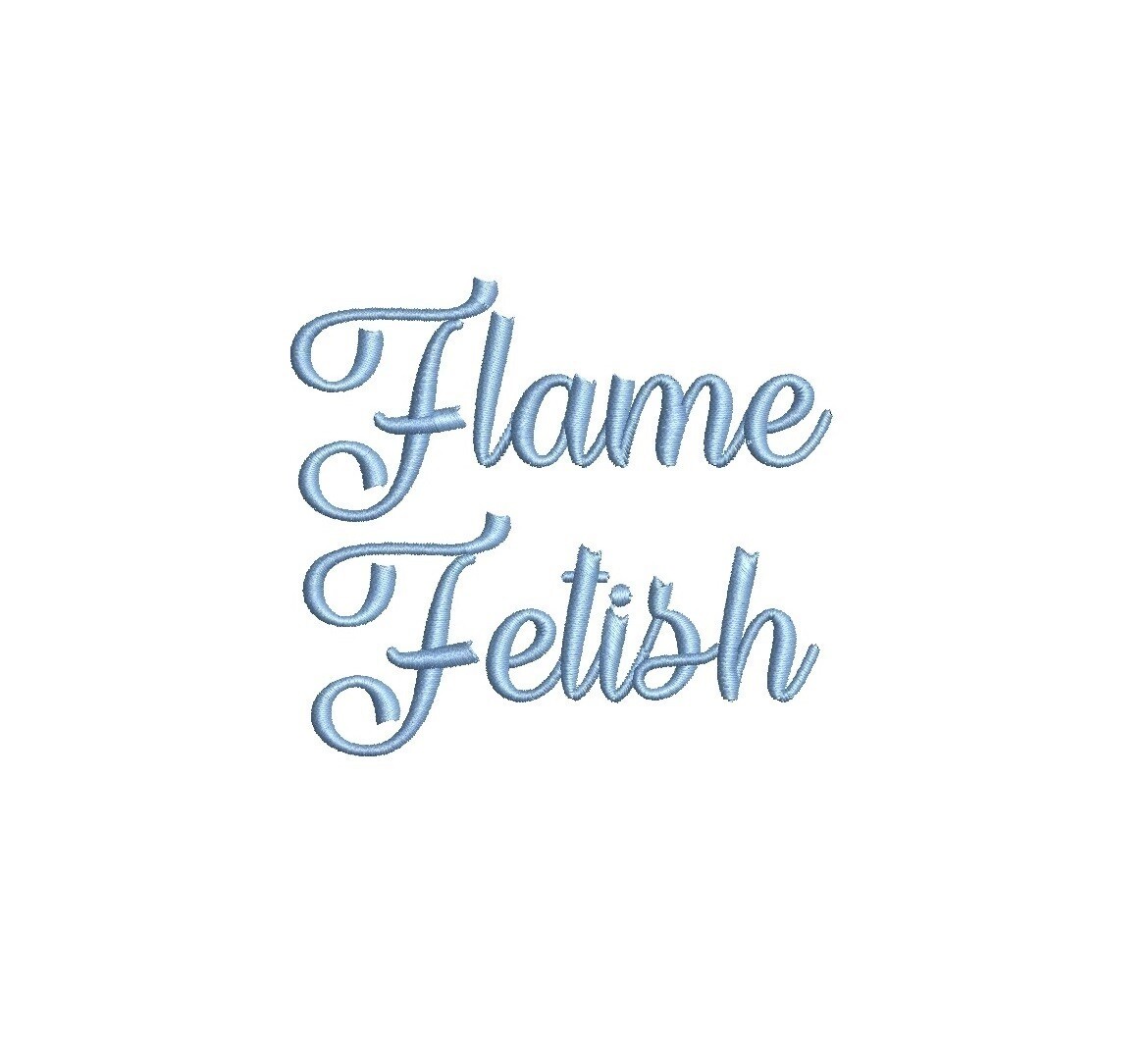
Ignite your designs with the Flame Fetish Regular ESA font. This fiery and captivating typeface will add a bold and passionate touch to your projects. Crafted with precision and attention to detail, this premium font guarantees a seamless and enjoyable design experience. Compatible with Wilcom Studio e4.5.6 and Hatch 3 versions and up, this versatile font ensures smooth embroidery creation. Whether it's sports logos, intense branding, or powerful headlines, Flame Fetish Regular ESA font brings the heat to any endeavor. Embrace its fiery allure and let your creativity burn bright. Get it now and set your designs ablaze with passion.